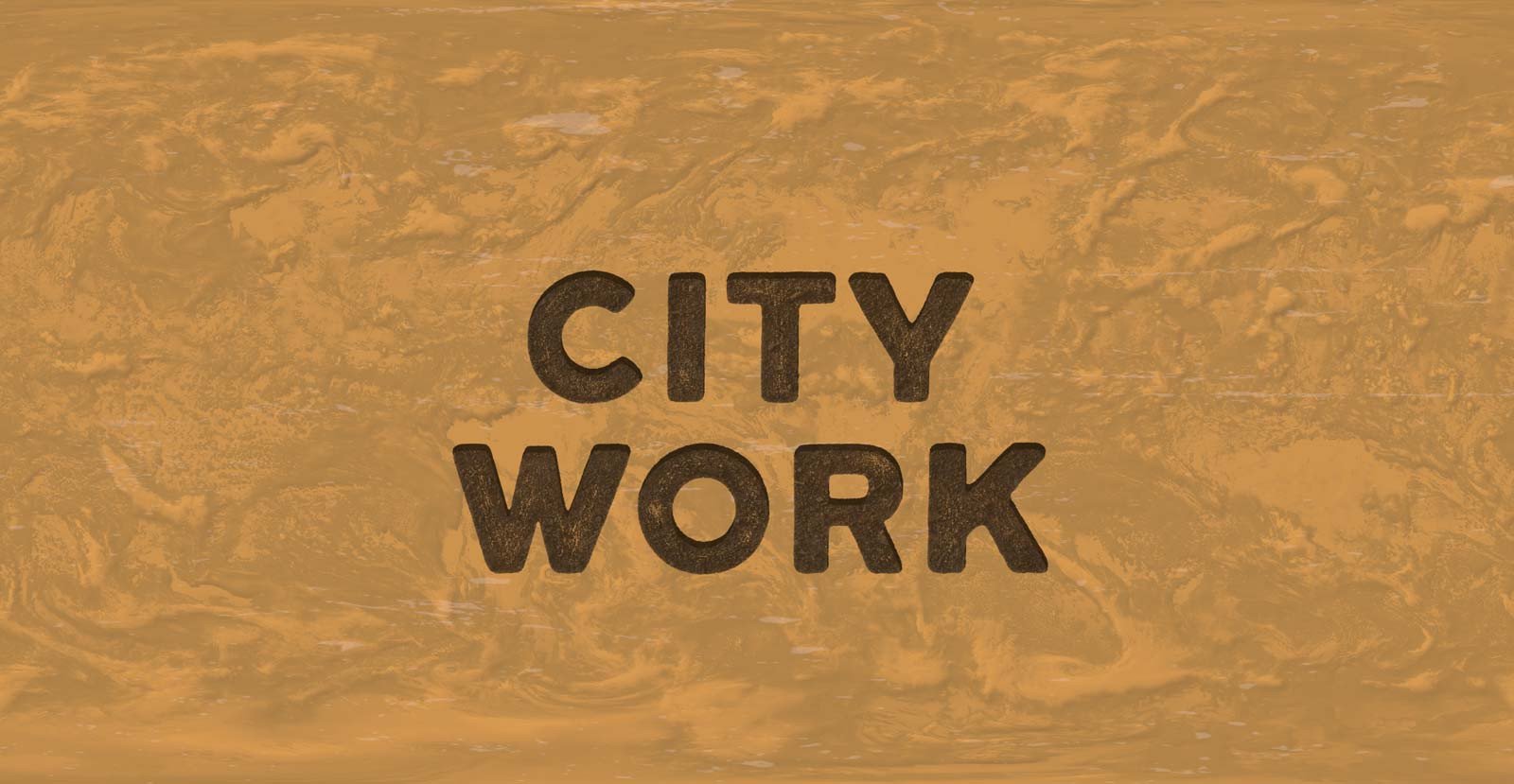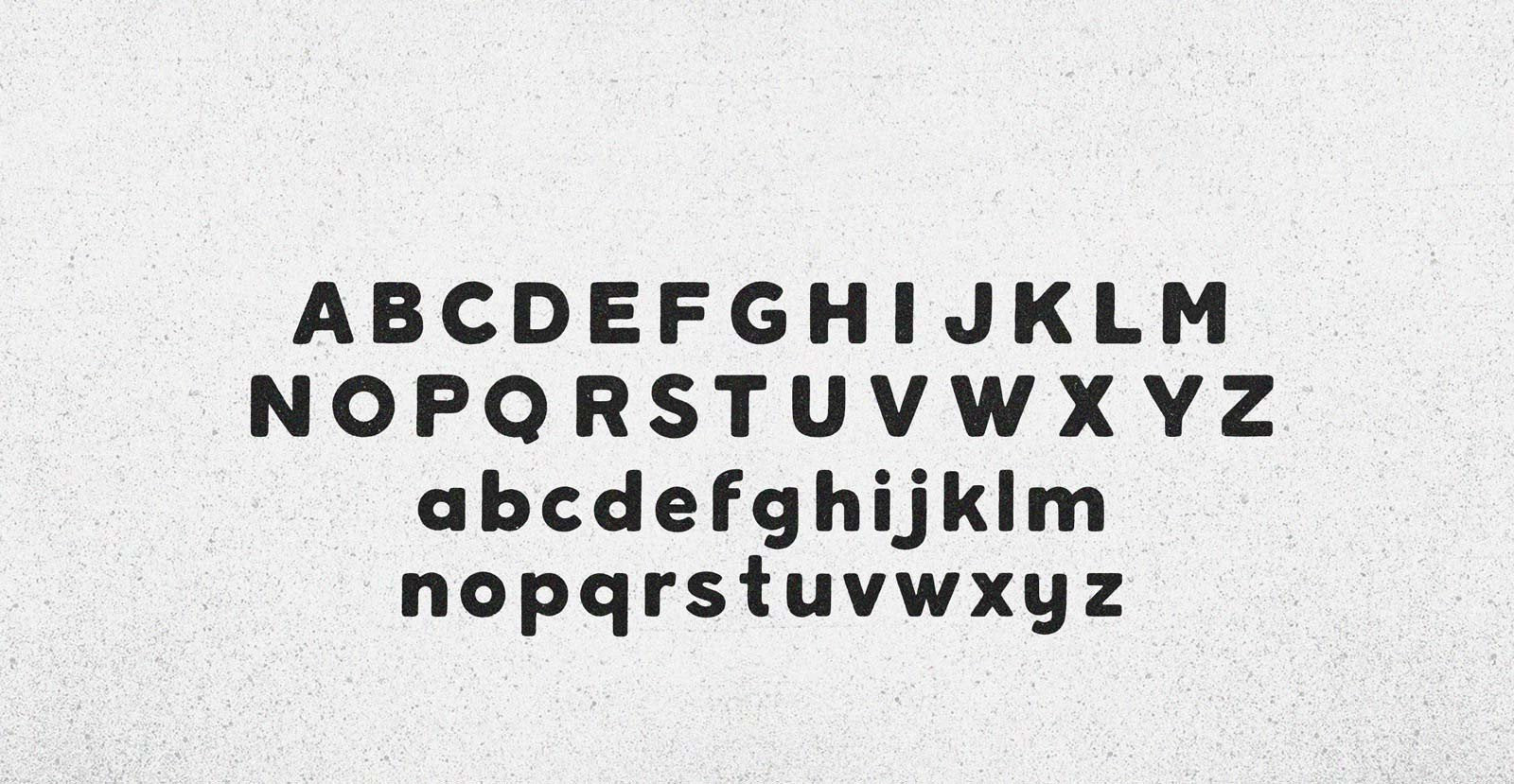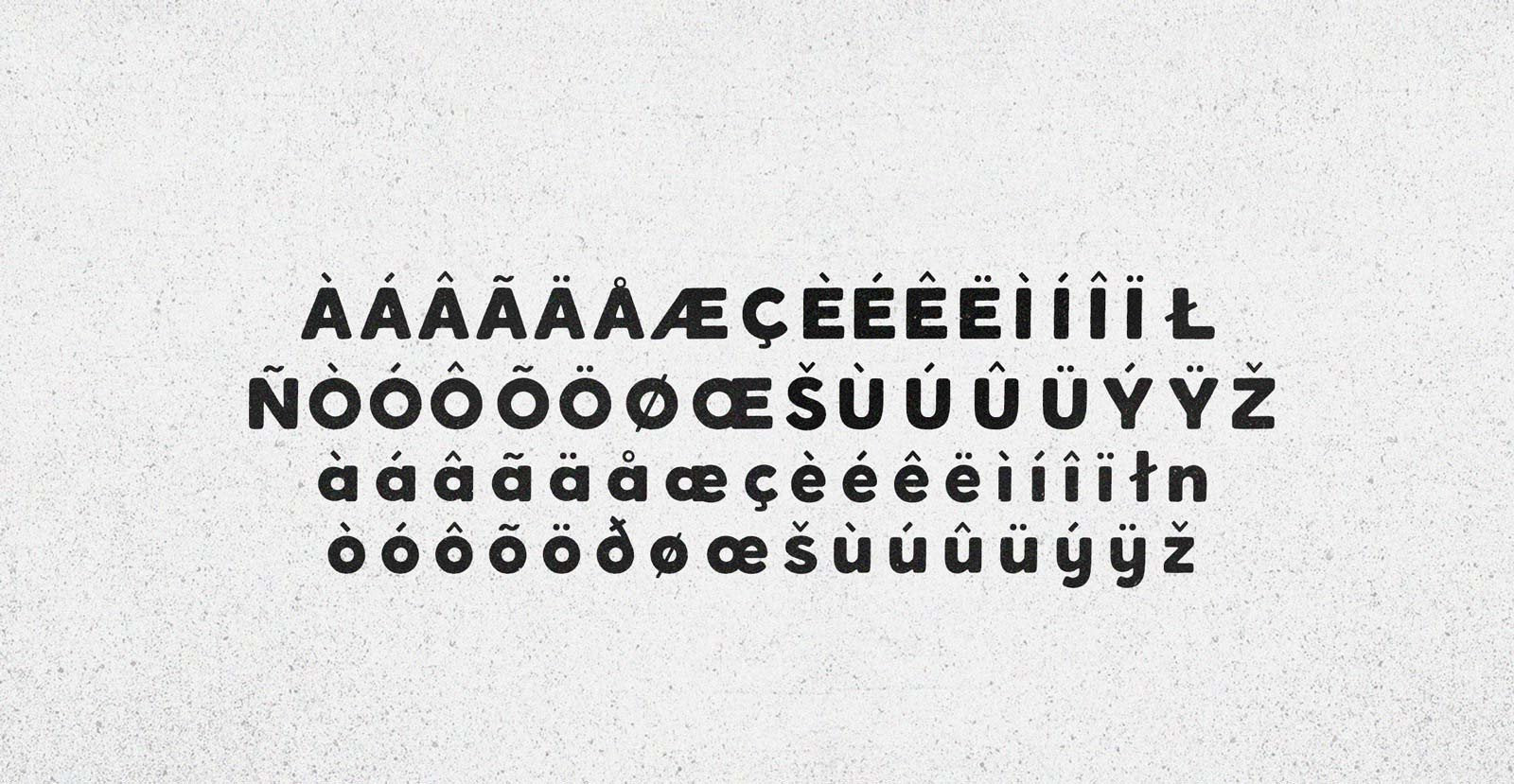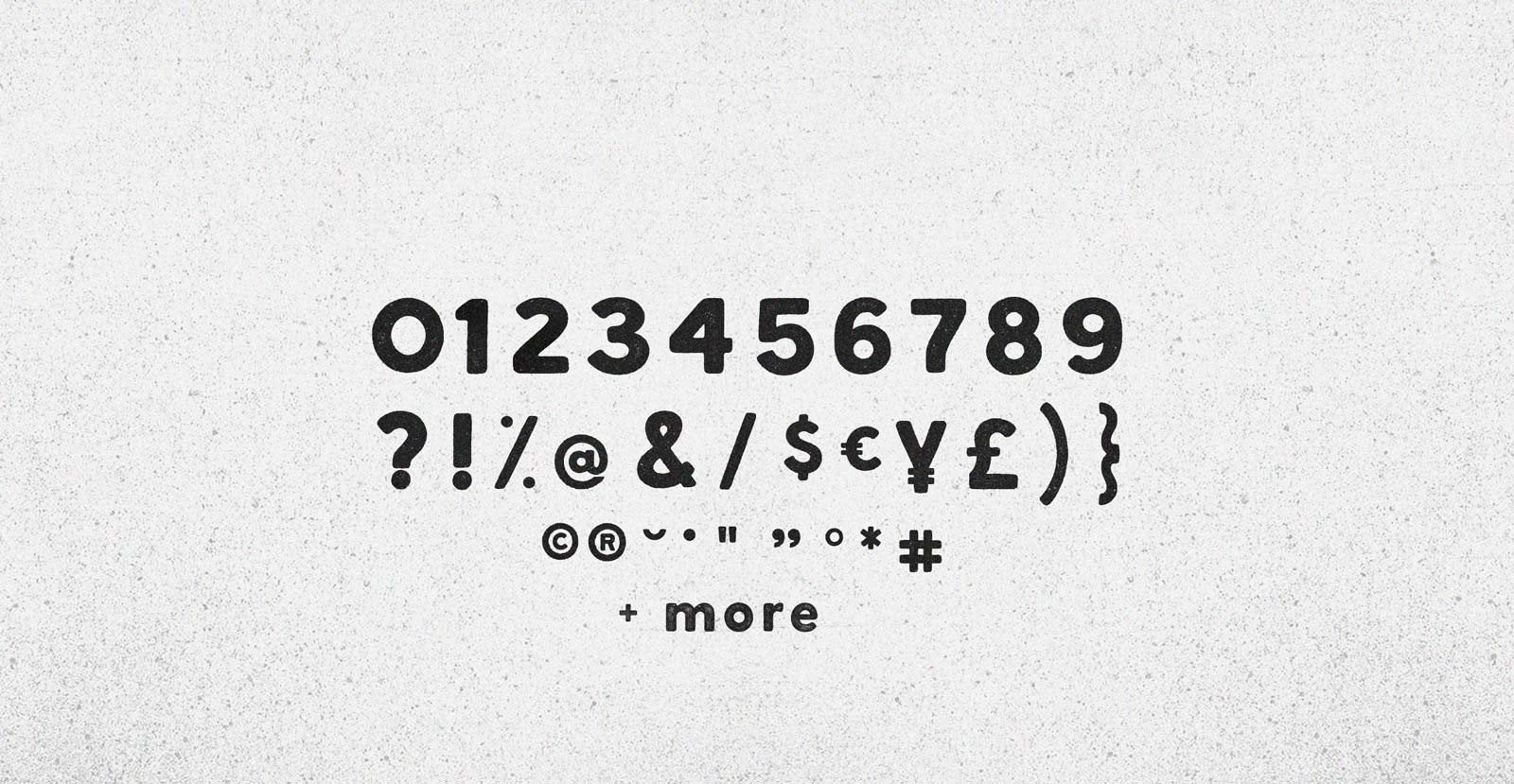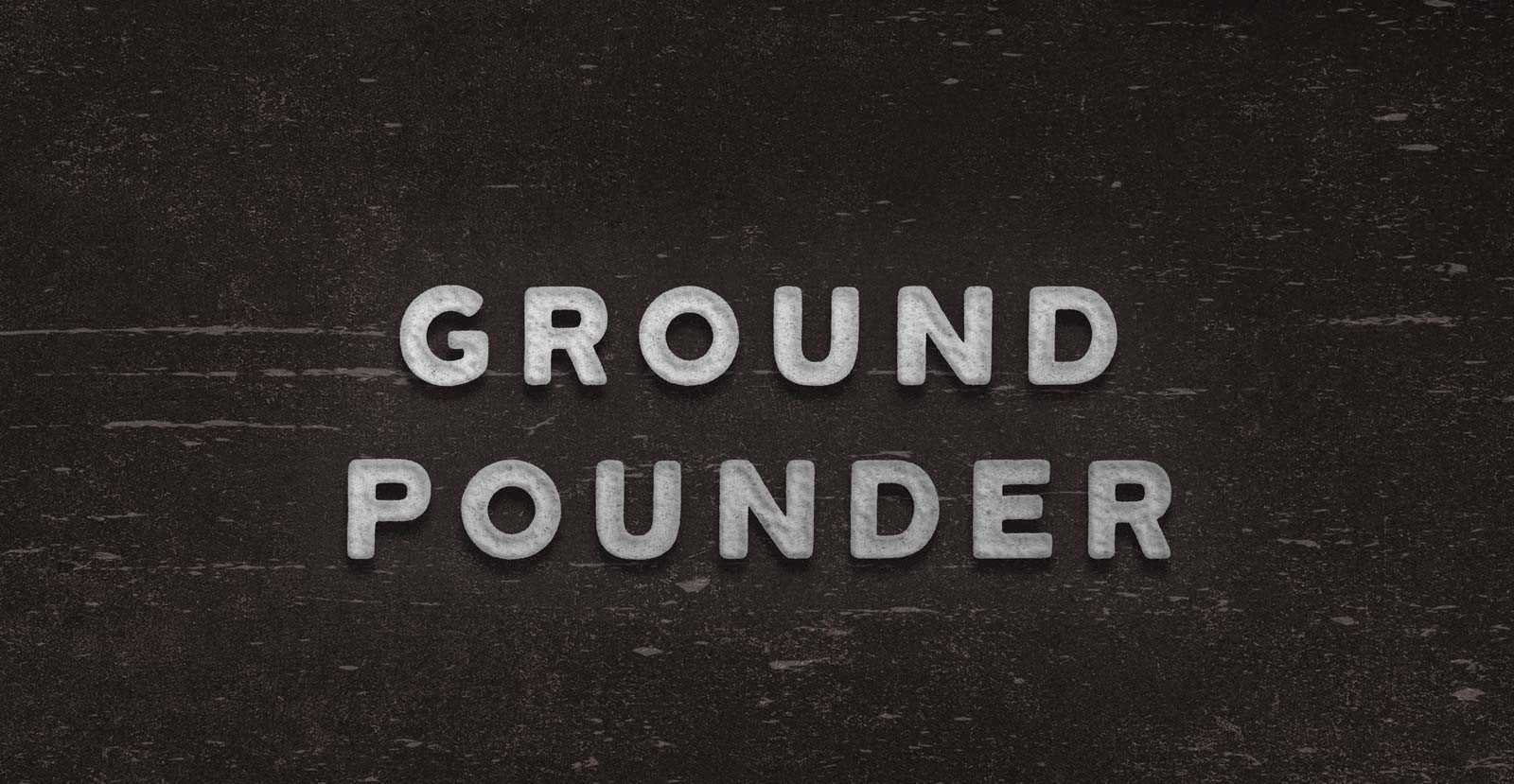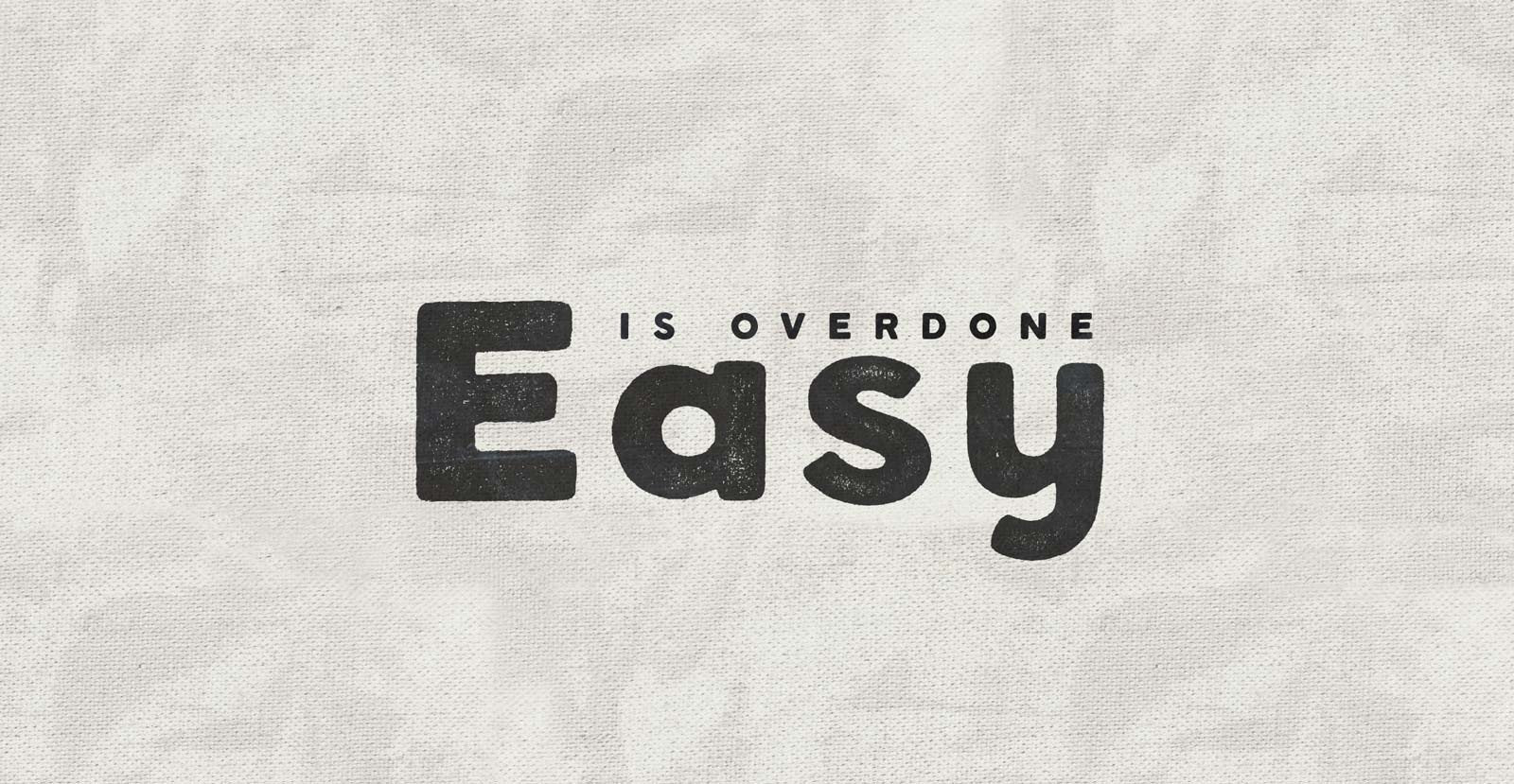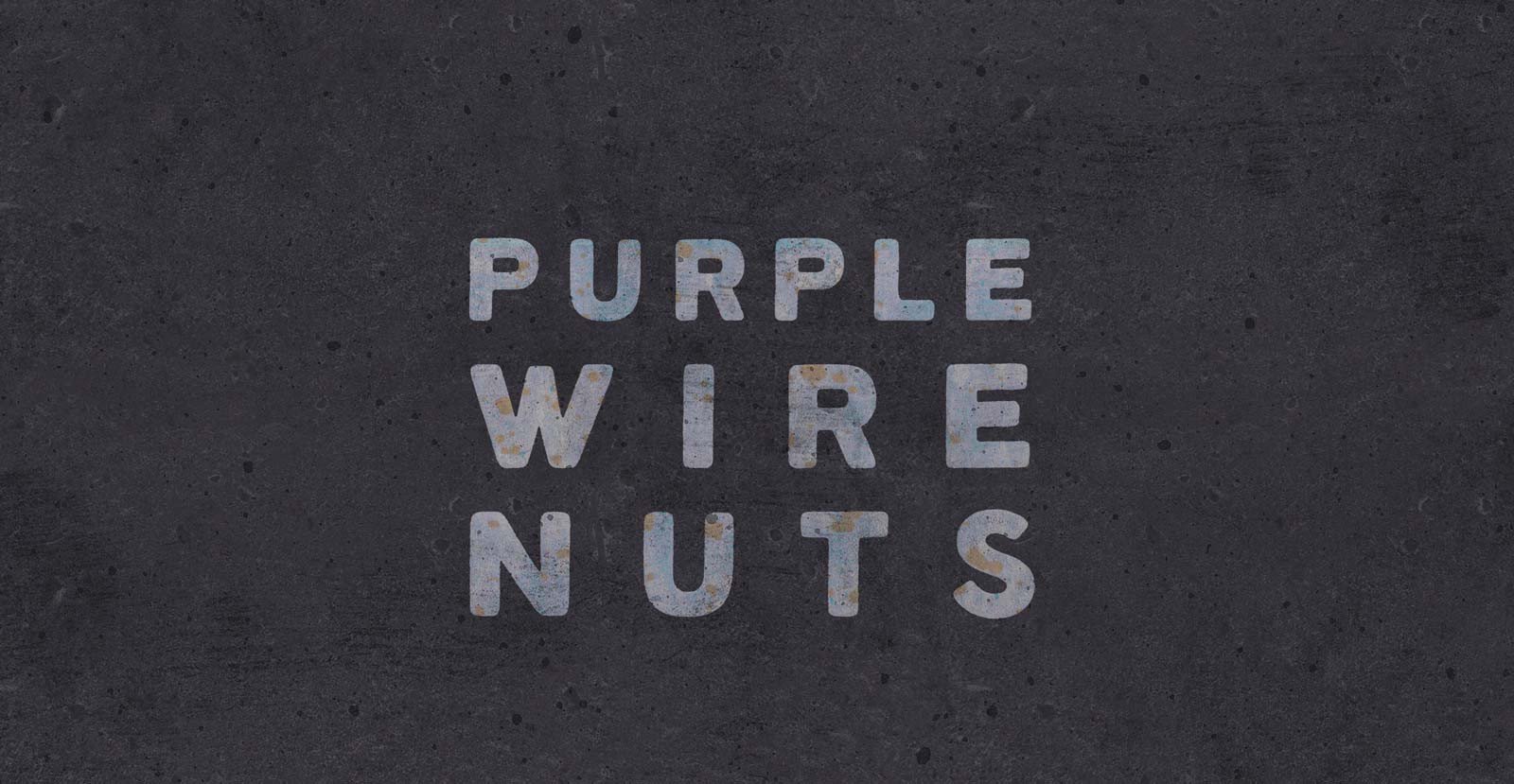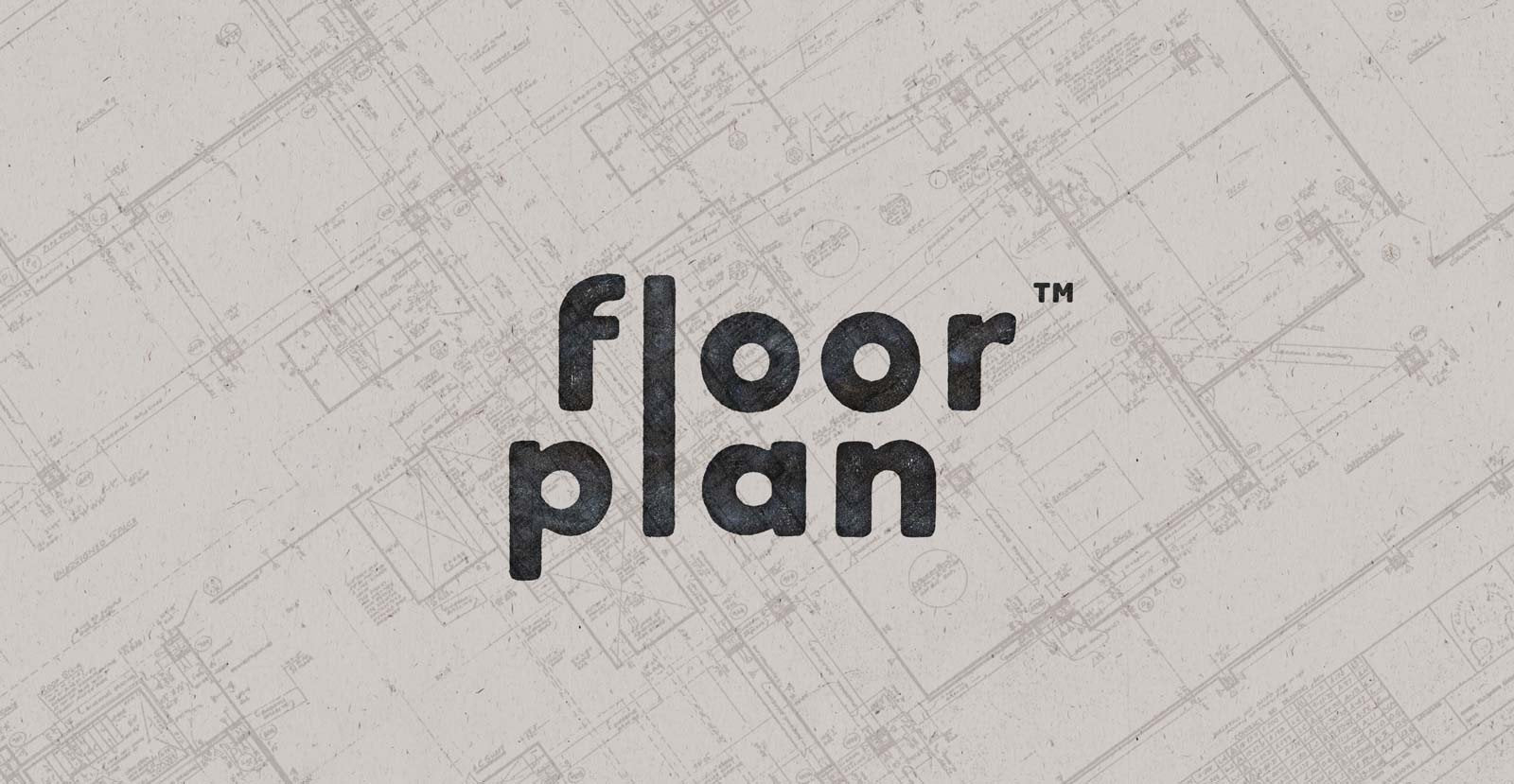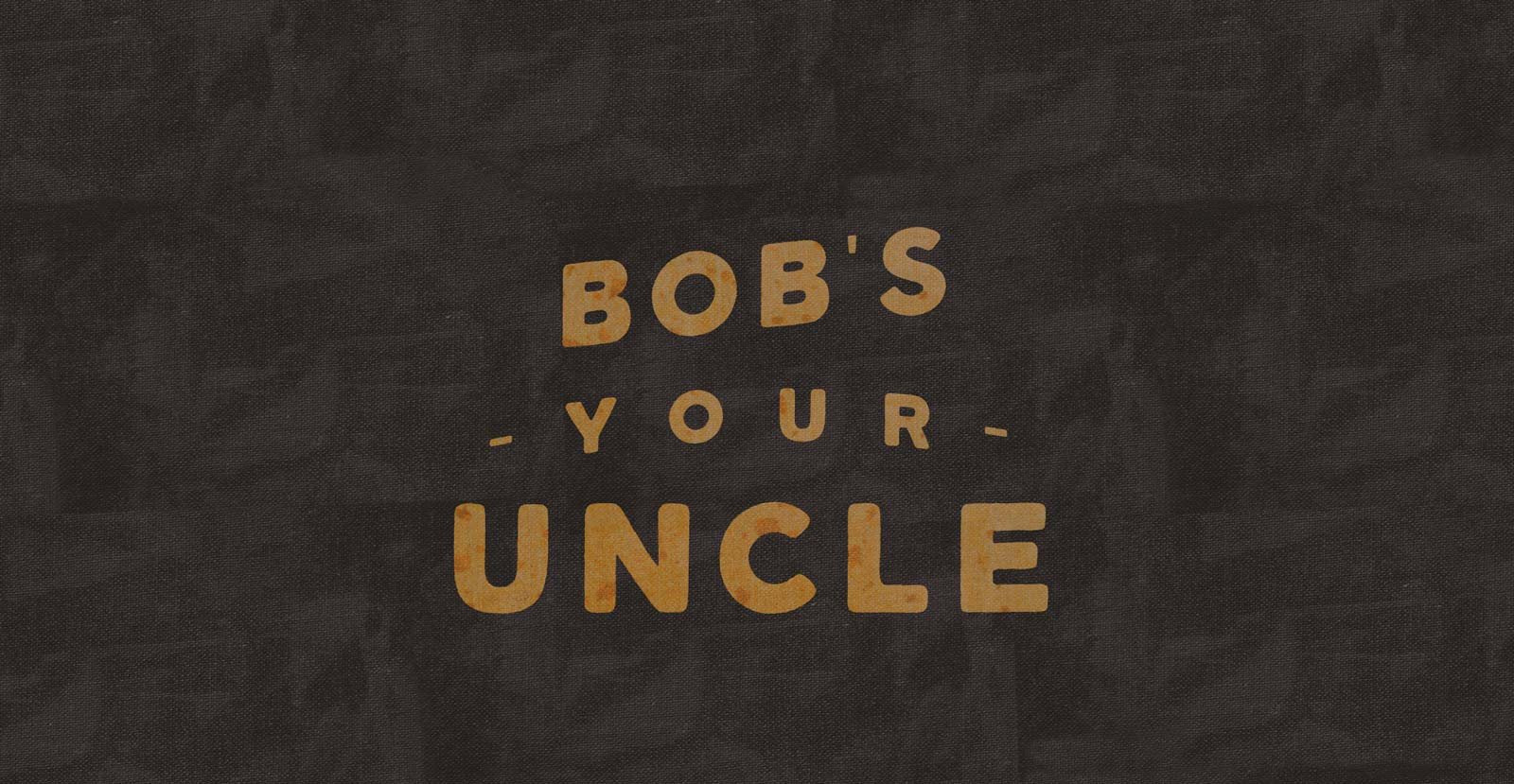
City Work
Handwritten Sans Serif Font
Jackhammers and backup beepers. An inharmonious din. A rumble and a clatter. Night shifts and traffic tie-ups. Garbage men, sewer workers, road crews, and cops. Civil servants in civic servitude. Work the city, make the City Work.